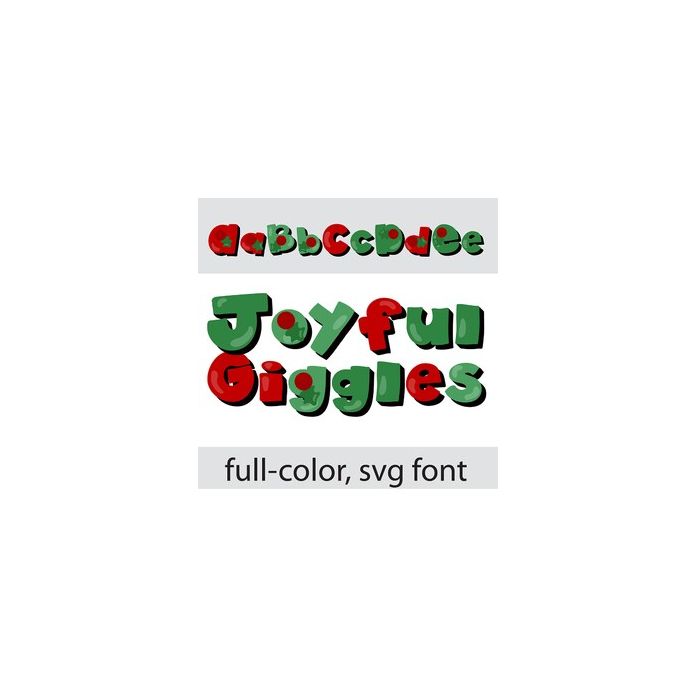
This full-color font features whimsical, toon-like lettering in a Christmas color palette. There is an alt case w/ additional colors you can access through your system or Silhouette's glyph map.